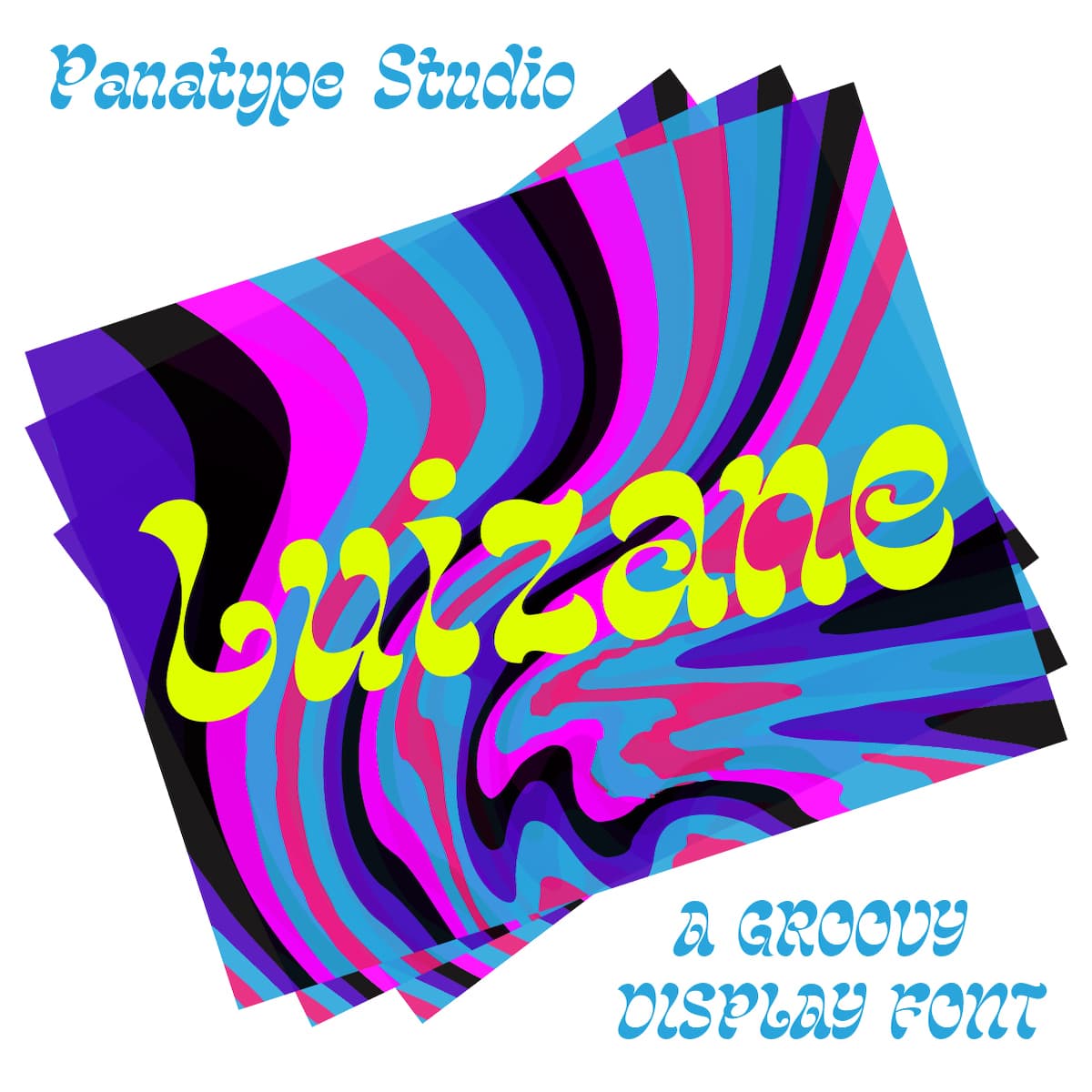
<p>LUIZANE is a psychedelic-inspired typeface. It's retro, bold, and playful. Perfect for your designs that want to have fun, and carefully crafted for all graphic design needs.</p>